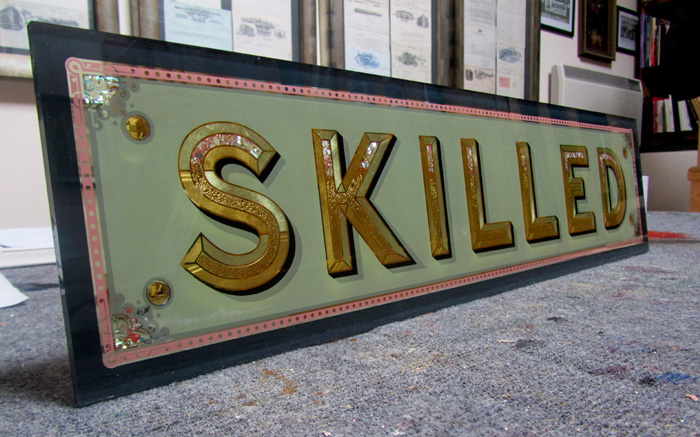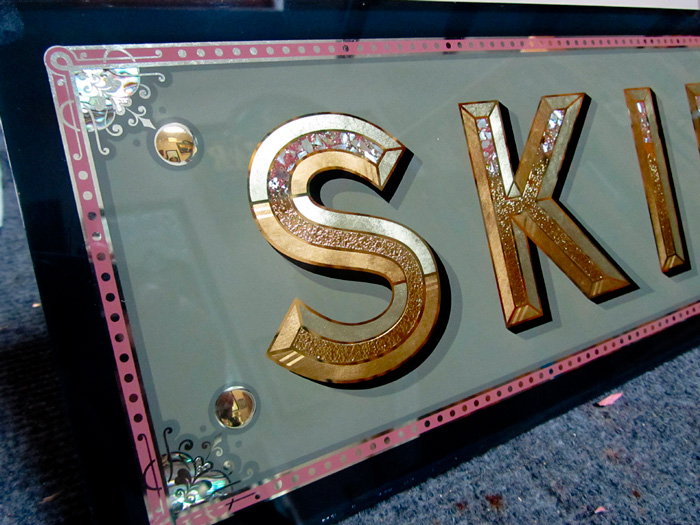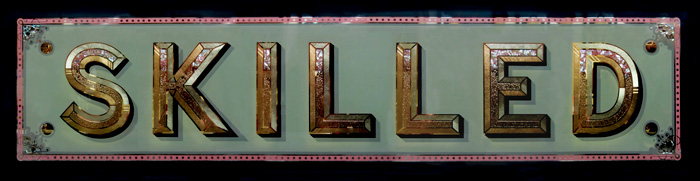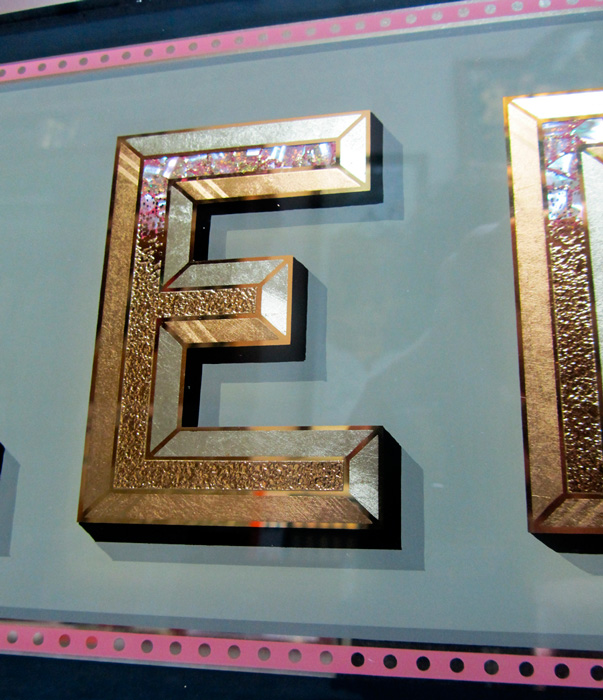
I had the opportunity to make this reverse glass sign panel for the uk's top Londom Museum the V and A. The show which runs from the 5th August for one year is displaying different signage in the Porter Gallery section. The V&A and Crafts Council will retain ownership of all the signs after the show. Other words were made in different mediums.
SPECTACULAR
REFINED
SKILLED
CRAFTED
METICULOUS
EXPRESSIVE
INTENSE
EXTREME
INGENIOUS
CURIOUS
IMAGINATIVE
TINKERED
the curator chose the style of text,each sign needed to match with the same font being used throughout.
Congratulations Dave! Amazing work! Really love the variety of textures and techniques that you used. They all work together nicely. The center gradient from shell to embossed is awesome! Nice combination.
Thankyou ! You will notice this text needs to go up slightly on the panel , it looks to low, they gave all the artists strict dimensions and placement of every sign. I nearly left off the shade because of this.
Dave: Wonderful work! And as always, you present something new and creative. The acid "stipple", giving way to the pearl-and-glazed fills within the centers---wow. And that delicate border: Pure U.K.
From your description, I deduce that the various makers were granted liberties; within the narrow constraints of designated typography and size.
Are you producing more than one? Did you have to submit tight artwork for approval? Any pictures of the other signs?
Thanks Mark. I was only sent the font along with dimensions , they said I had free rain on border work and interior of the text and colours etc .They did not need to see what I was proposing with anitial sketches.. I have sent an email asking to see the other signs ,once they send images I will post them here. I only made this one panel for the exhibition. Glad you like it. Hopefully it may lead to other prestigous work like this.
I have a ticket for the opening event for the 6th August. This link shows the same style used on the front of the book http://www.vam.ac.uk/content/exhibition ... king/shop/ this is the font sent to us to create the individual signs in our own way and style and medium we work in.